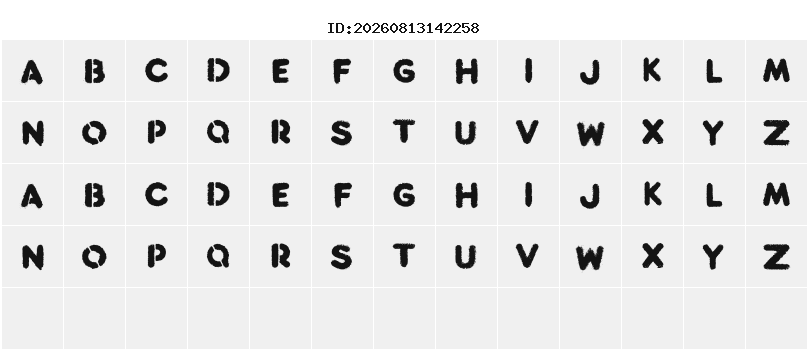
Reclaim.ttf
• Font Name: Reclaim
• Designer: Nils von Blanc
About Reclaim.ttf
Reclaim.ttf is a modern, elegant sans-serif font designed for ultimate readability and visual harmony. Perfect for branding, headlines, web design, and print materials.